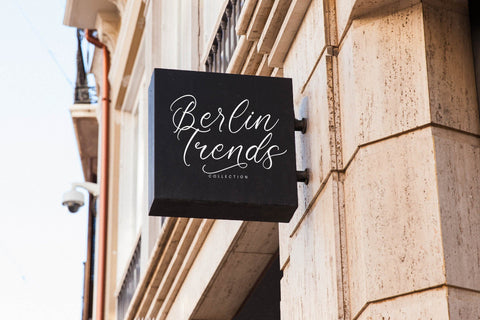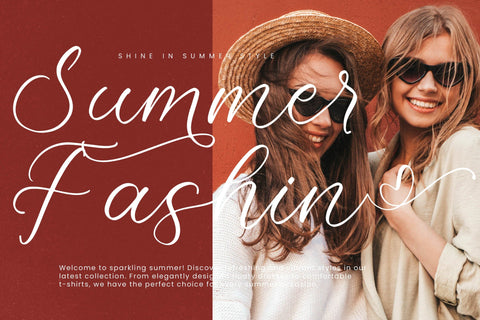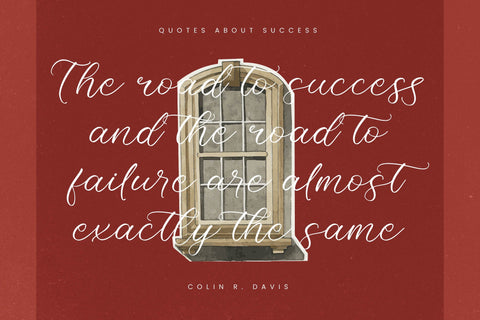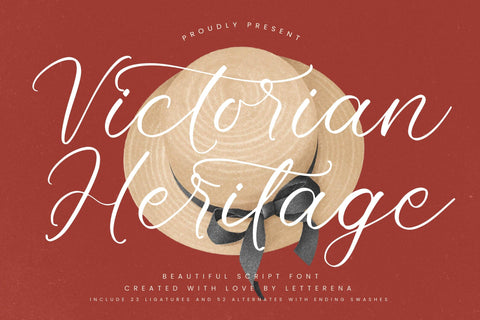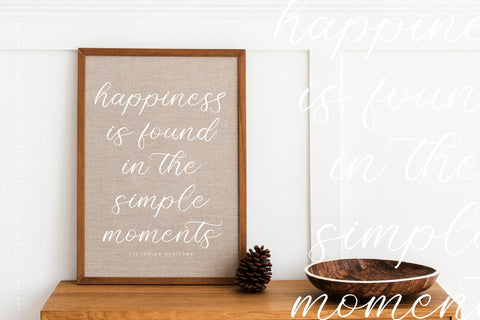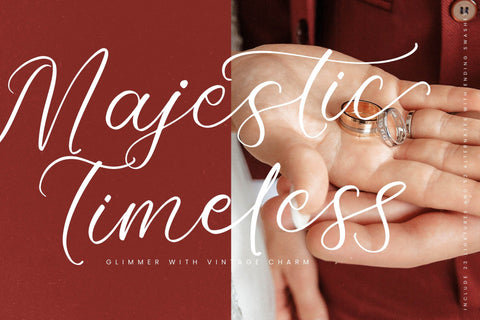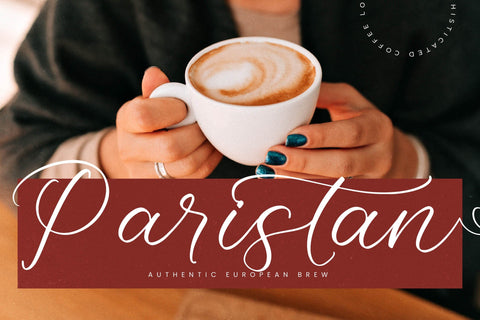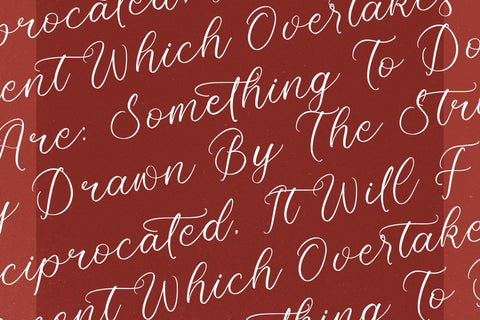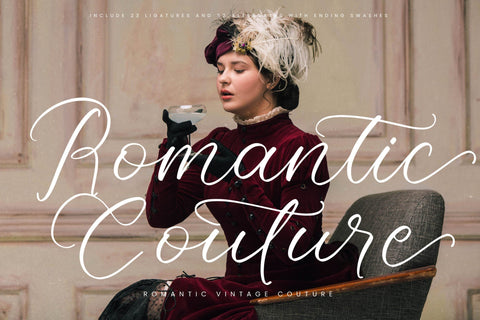
Victorian Heritage - Beautiful Script Font
Victorian Heritage - Beautiful Script Font , from Letterena, is a Luxury Script font, suitable for any projects such as: logos, branding projects, homeware designs, product packaging, mugs, quotes, posters, shopping bags, t-shirts, book covers, name card, invitation cards, greeting cards, label, photography, watermark, special events, and all your other luxury and beautiful projects that need a Luxury Script taste.